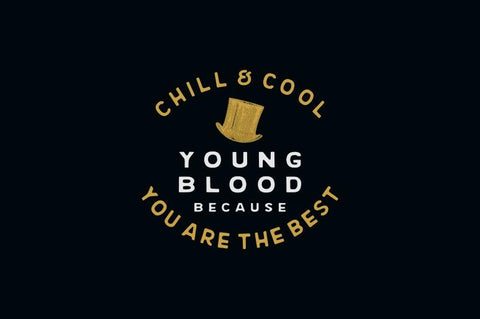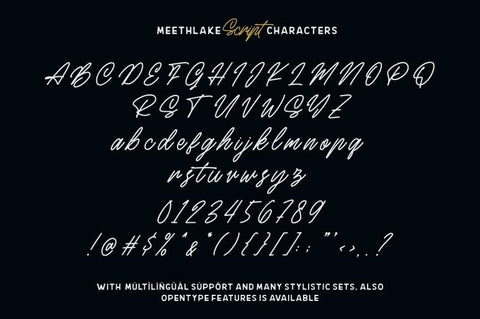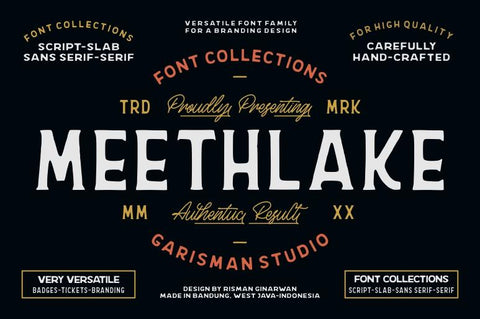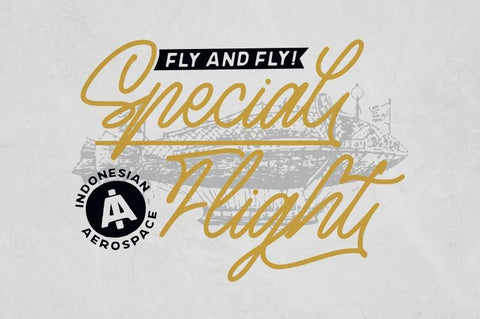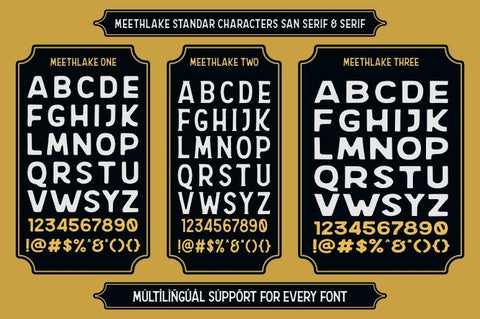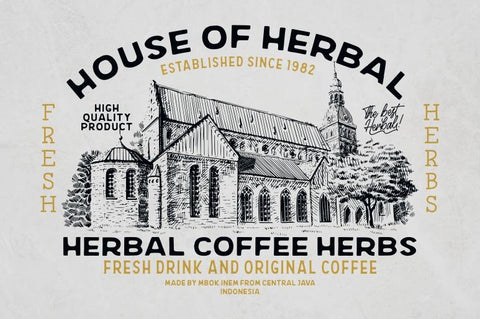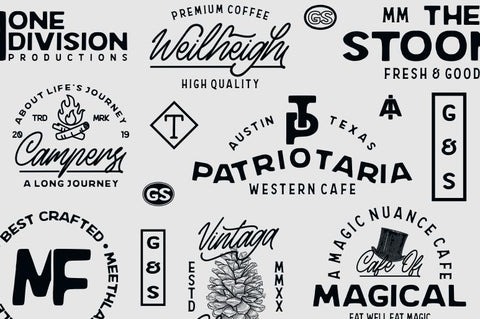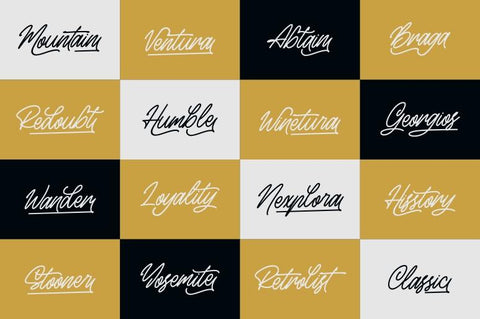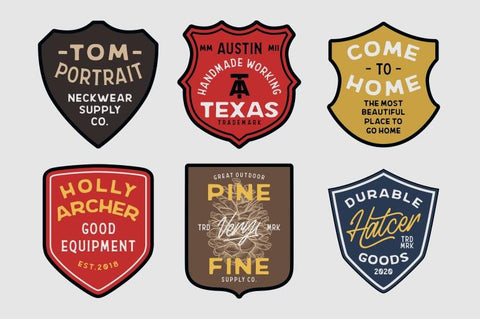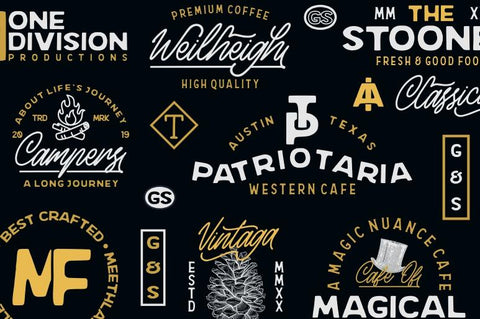
Meethlake Typeface
Introducing Meethlake Typeface
Meethlake born from inspiring vintage display. This font gives a feel of vintage, classic, old, handmade looked like. Already PUA Encoded and I think this font is perfect for people looking for vintage aesthetic or logo-type. Suitable for any graphic designs such as branding materials, t-shirt, print, business cards, logo, poster, t-shirt, photography, quotes .etc.
– Numerals & Punctuations
– Meethlake Script support Ligature, Stylistic Sets, Contextual Alternates, and Swashes.
– Multilingual characters (support for 23 languages): Afrikaans Albanian Catalan Croatian Czech Danish Dutch English Estonian Finnish French German Hungarian Icelandic Italian Norwegian Polish Portugese Slovak Slovenian Spanisch Swedish Zulu